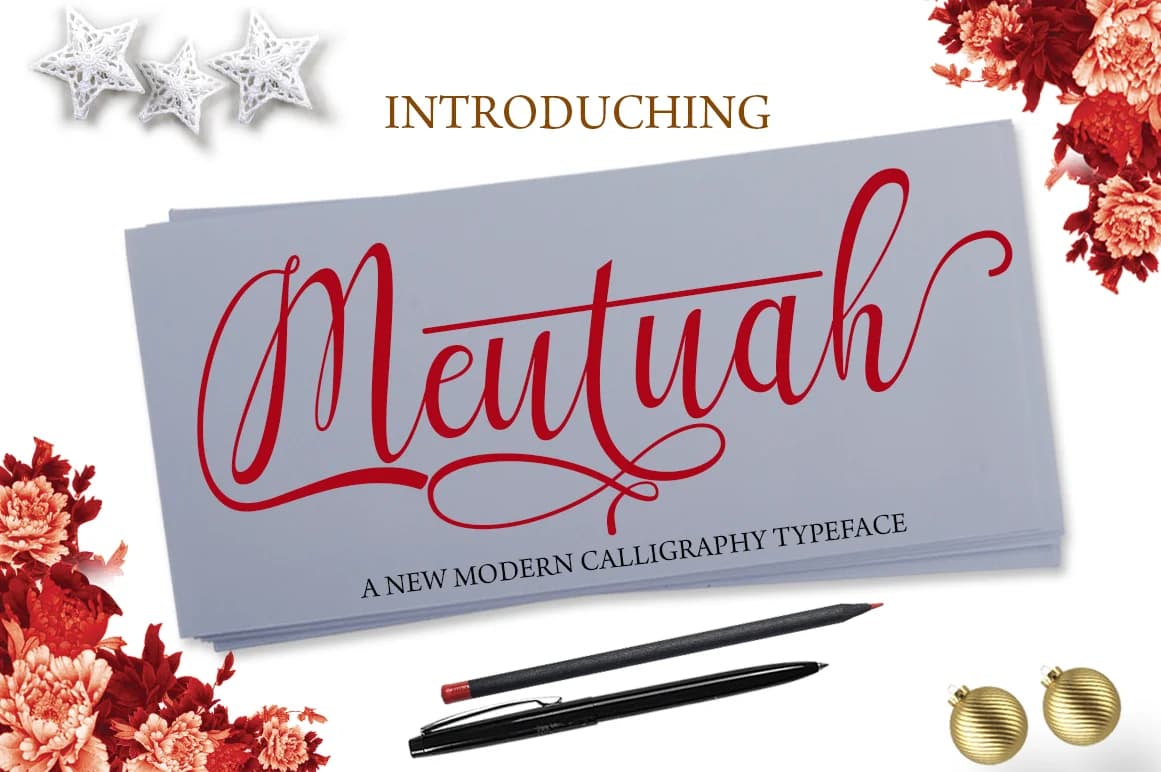
Meutuah by BungCu.id is an expressive handwritten script that captures the intimate quality of pen-on-paper letterforms with refined digital precision and polish. This flowing typeface features an impressive 539 glyphs, providing extensive character coverage for diverse language support and design needs that extend well beyond basic Latin characters.
The natural stroke variation and organic letterforms work beautifully for wedding invitation suites and sophisticated save-the-date designs, where genuine handwriting feels far more personal and memorable than rigid, impersonal typefaces. The font is equally suited for crafting boutique beauty and wellness brand identities, where a handcrafted aesthetic builds trust with your audience. From designing rustic event signage that captures attention to lettering custom product labels for artisan makers selling on Etsy, Meutuah brings authentic personality to every application. The consistent rhythm across letterforms ensures strong readability even in smaller sizes while maintaining that coveted hand-drawn warmth and soul that consumers respond to emotionally.
Meutuah Font is a script font that shines as a display or heading face. Pair it with a clean sans-serif or serif font for body text β the contrast creates a clear hierarchy while the two styles stay balanced and easy to read.
Meutuah Font